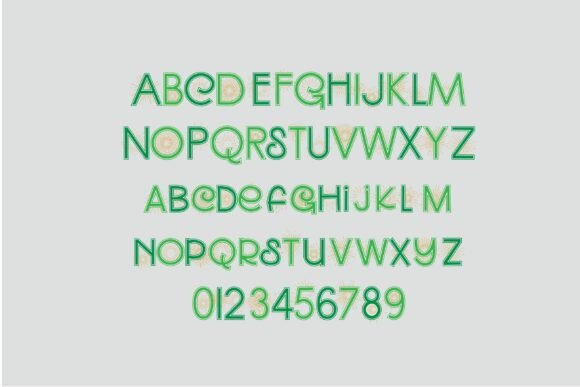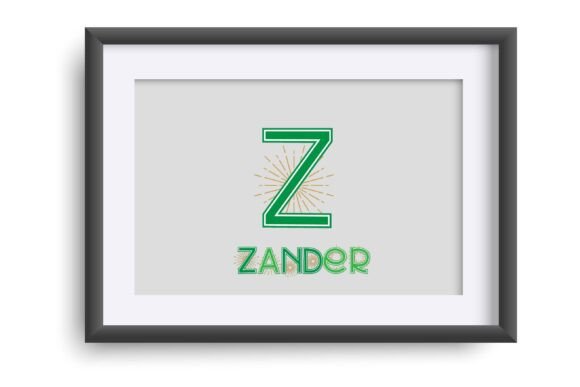
Celebrate Green Font
This full-color font features a sans serif font with celebratory starbursts. There is an alt version you can access through your system’s character map that contains additional colors of all the letters. This font works best for titles, displays, posters and more. Please note color fonts will show as black in non compatible programs. This font type is compatible with Silhouette Studio.